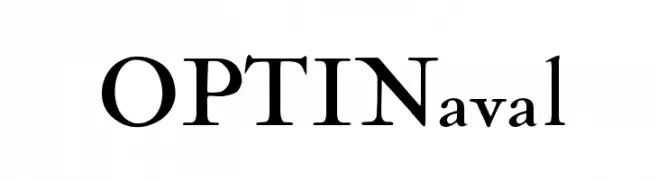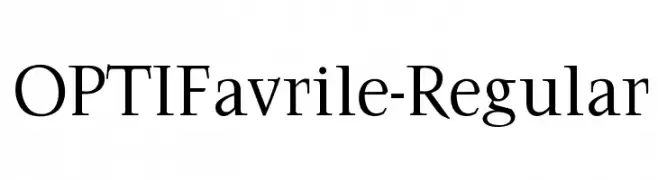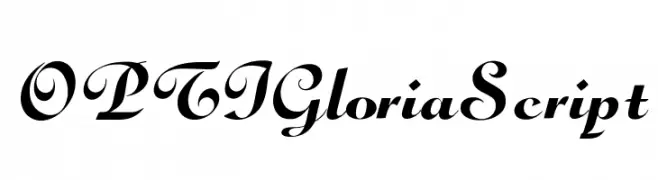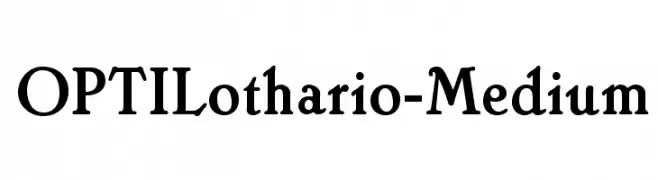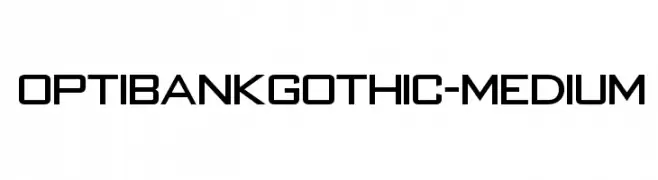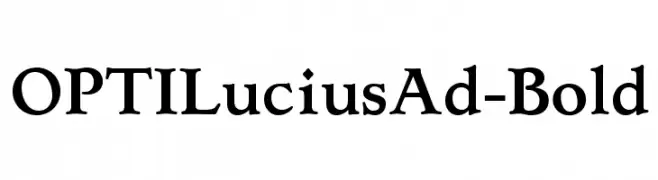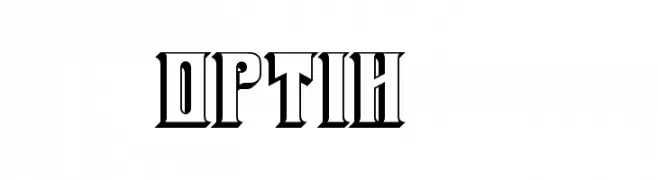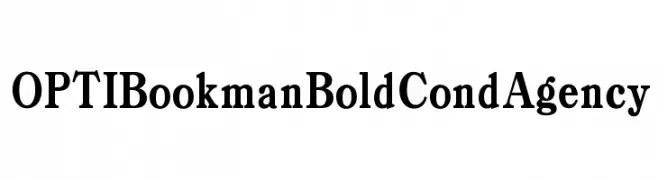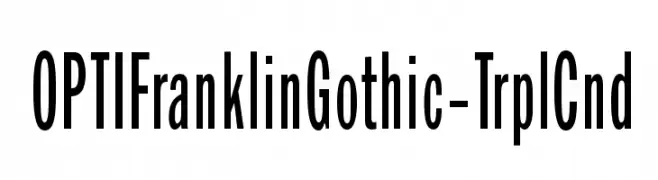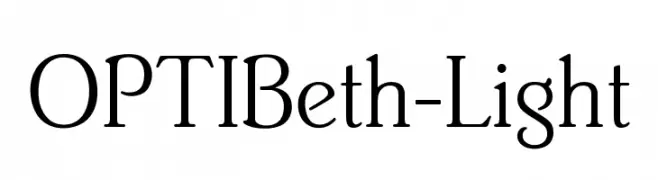
A classic serif font with elegant contrast and sharp serifs.
A classic serif typeface with elegant, flowing lines and refined proportions.
An elegant, high-contrast script font with ornate curves and a classic style.
A bold, classic serif font with elegant proportions and strong serifs.
A modern, geometric font with clean lines and extended width.
A classic serif font with elegant, thin strokes and high contrast.
An elegant serif font with a classic italic style and medium weight.
A classic serif font with elegant strokes and moderate contrast, perfect for timeless designs.
A tall, narrow font with a modern and elegant style.
A classic serif font with high contrast and elegant strokes.
A classic serif font with elegant curves and medium weight.
A modern, geometric font with bold, angular characters and a sleek appearance.
A classic serif font with elegant strokes and versatile design.
A classic serif font with bold, elegant serifs and a timeless appearance.
A bold, geometric font with a modern and artistic style.
A modern, condensed sans-serif font with uniform stroke width and excellent readability.
A bold, geometric font with a sporty, three-dimensional look.
A bold, classic serif font with strong, authoritative strokes.
A light, elegant italic font with a refined and sophisticated style.
A classic serif font with sharp serifs and high contrast, perfect for elegant designs.
A tall, narrow, and modern typeface with high legibility.
A classic serif font with elegant strokes and balanced proportions.
A classic serif font with elegant strokes and high contrast, ideal for refined designs.
An elegant script font with flowing, cursive letterforms and intricate flourishes.
A bold, classic serif font with strong, authoritative strokes.
A bold, italic font with tight spacing and a modern, dynamic style.
A bold, clean font with strong lines and excellent legibility.
A bold, modern font with clean lines and a professional appearance.